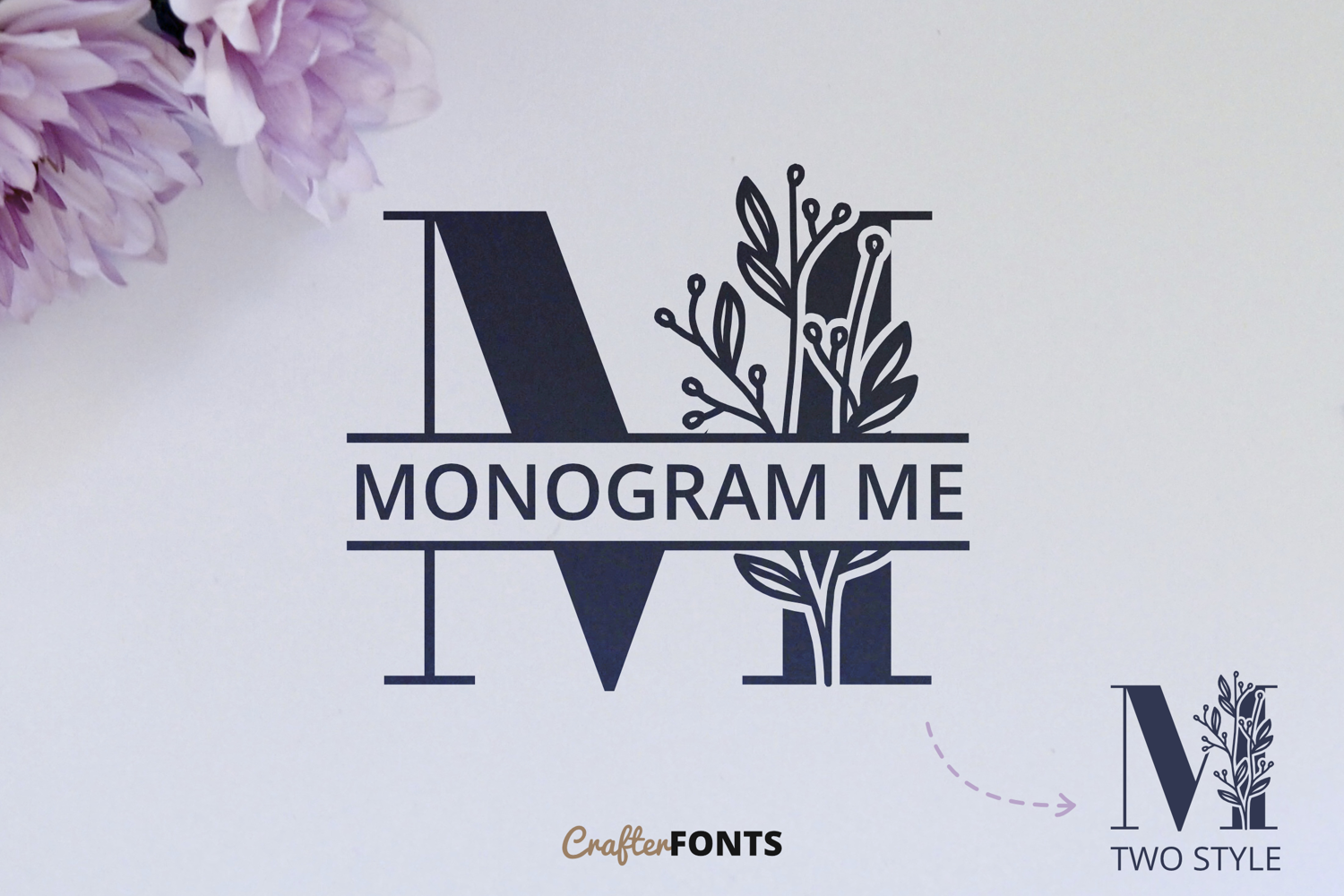
Monogram Me
Monogram Me Regular
Monogram Me – Elegant Split Floral Font
Elevate your custom crafting, branding, and personalized gifts with Monogram Me, an elegant serif font tailored for monogram creations. Masterfully combining sophisticated classic serif letterforms with organic botanical leaves and floral branches, this font offers a seamless, dual-style workflow in a single package.
The character set is ingeniously split into two functional layouts:
• Uppercase (A-Z): Features full capital letters adorned with gorgeous, intricate floral overlays—perfect for standalone initial logos, luxury wedding stationery, and elegant monogram crests.
• Lowercase (a-z): Features a pre-designed Split Monogram format, creating a perfectly aligned blank horizontal banner right in the middle of each letter. Simply type any custom name inside the open space to create gorgeous family name signs, laser-cut wood decorations, and personalized merchandise instantly.
• Monogram Character Layout – Includes a complete set of 26 Floral Decorative Letters (Uppercase) and 26 Split Name Monogram Letters (Lowercase).